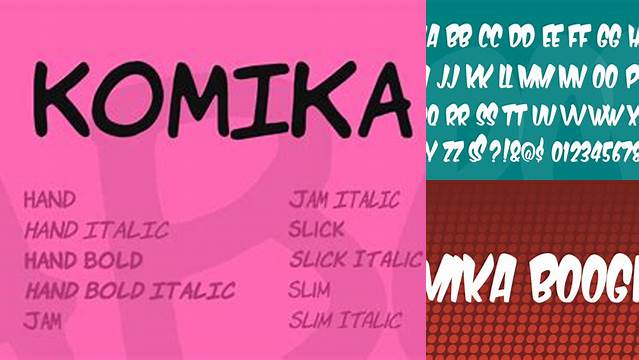
Hey guys! Ever stumbled upon a font that just pops and adds that perfect touch of whimsy to your website? Well, let's dive deep into the world of 1001fonts Komika font HTML! This font is like the friendly neighbor you always wanted – approachable, fun, and super versatile. We're going to break down everything you need to know, from what makes it special to how to implement it on your website. Get ready for a font-tastic journey!
What is the 1001fonts Komika Font?
The 1001fonts Komika font HTML is a typeface celebrated for its playful and cartoonish design. Imagine bubble letters coming to life, and you're halfway there. This font family is ideal for projects aiming for a friendly, approachable, and informal tone. Think children's books, comic strips, greeting cards, and even quirky website headers. Its rounded edges and unique character shapes make it instantly recognizable and appealing. Beyond its aesthetic charm, Komika offers impressive readability, ensuring your message gets across clearly, even at smaller sizes. What makes it even better is that it's readily available on 1001fonts, a treasure trove for font enthusiasts. You can easily download it and experiment with different styles to see how it fits your creative vision. Whether you're a seasoned designer or just starting, Komika provides a delightful and accessible way to add personality to your projects.
History and Origin of Komika Font
To truly appreciate the 1001fonts Komika font HTML, let's take a trip down memory lane and explore its origins. Designed by Constantin Wlasich, Komika draws inspiration from comic book lettering. Wlasich aimed to create a font that was both legible and full of character, capturing the essence of classic comic strips. Released in the early 2000s, Komika quickly gained popularity for its unique style and versatility. It became a go-to choice for designers looking to add a playful touch to their projects. The font's success can be attributed to its careful balance of readability and visual appeal. Wlasich's attention to detail is evident in every curve and line, making Komika a standout typeface. Over the years, Komika has been updated and expanded, with different weights and styles added to the family. This evolution has ensured that the font remains relevant and useful for a wide range of applications. From its humble beginnings as a niche comic book font, Komika has grown into a widely recognized and beloved typeface.
Key Features and Characteristics of Komika
What exactly makes the 1001fonts Komika font HTML so special? Let's dive into its key features and characteristics. First off, the rounded edges are a signature element, giving it a soft and friendly feel. The letterforms are slightly condensed, which means you can fit more text into a smaller space without sacrificing readability. Another notable feature is the consistent stroke weight, contributing to a balanced and harmonious appearance. Komika also boasts a relatively tall x-height, enhancing legibility, especially in body text. The font includes a comprehensive set of characters, including uppercase and lowercase letters, numbers, punctuation marks, and symbols. This makes it suitable for a wide range of applications, from headlines to body copy. Furthermore, Komika is available in various weights, from light to bold, offering flexibility in design. Whether you need a delicate touch or a strong statement, Komika has you covered. Its unique personality and versatility make it a valuable addition to any designer's toolkit.
Conclusion: The Enduring Appeal of Komika Font
In conclusion, the 1001fonts Komika font HTML remains a popular and versatile choice for designers seeking to add a touch of playfulness and friendliness to their projects. Its unique blend of legibility and personality makes it well-suited for a variety of applications, from children's websites to creative portfolios. By understanding its history, key features, and best practices for usage, you can leverage the full potential of Komika to create engaging and effective designs. Remember to consider accessibility, optimize for web use, and pair it with complementary fonts to achieve a harmonious and visually appealing result. While design trends may evolve, the enduring appeal of Komika lies in its ability to connect with users on an emotional level and create a positive and welcoming experience. As you continue to explore the world of typography, remember to respect font licenses, support designers, and stay informed about emerging trends. With careful planning and execution, the Komika font can be a valuable asset in your design toolkit.